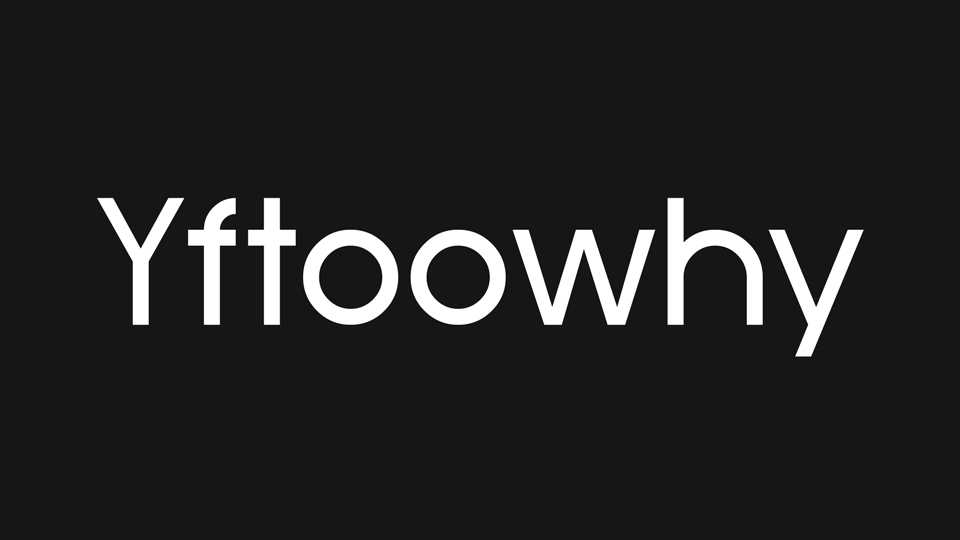
Download Yftoowhy font, a legible, geometric sans serif typeface. A versatile, contemporary grotesque, Yftoowhy is suitable for any text or display purpose.
Designer: Bryndan W. Meyerholt